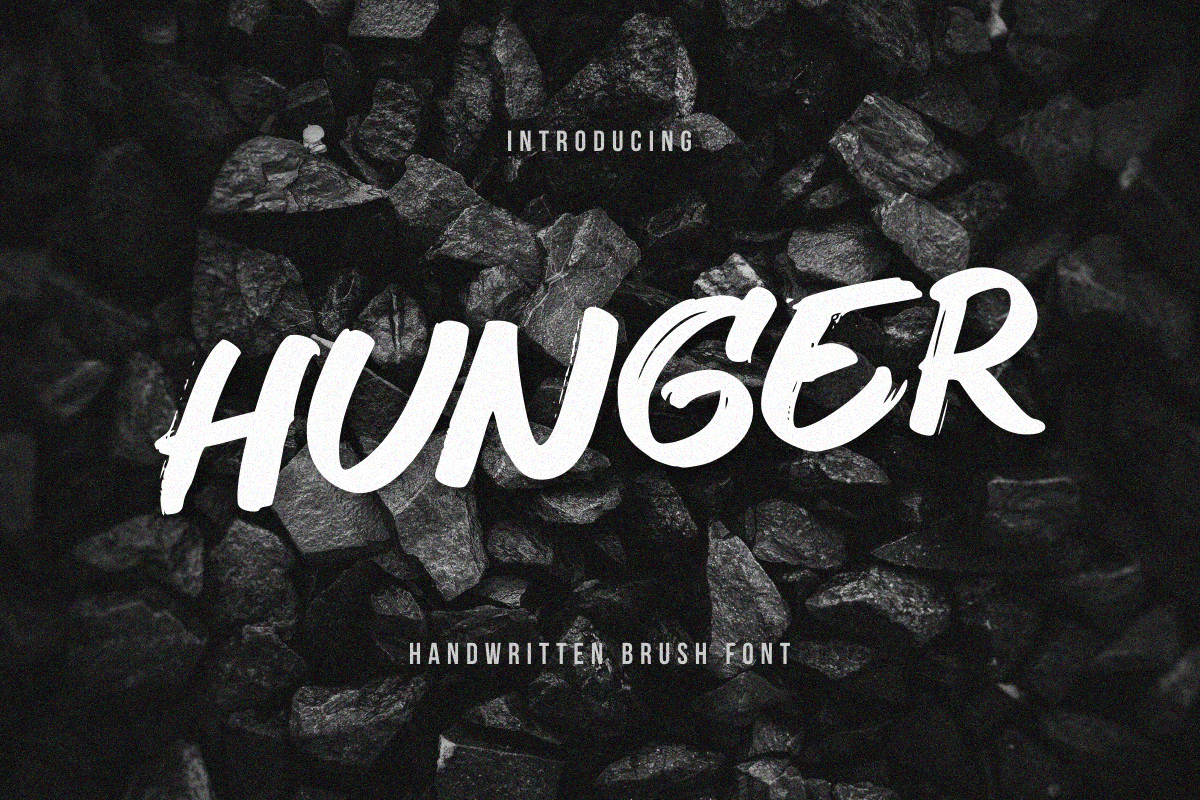
Hunger
-Handwritten Brush Font
Hunger
Hunger is A handwritten brush font with a textured style. With quick dry brush and textured style, perfect for your design projects, t-shirt designs, product packaging, action poster, film poster and many more with easy to use but extra results like Handwritten.
Enjoy to Design any your needs with rough, rush, and original handwritten feel.